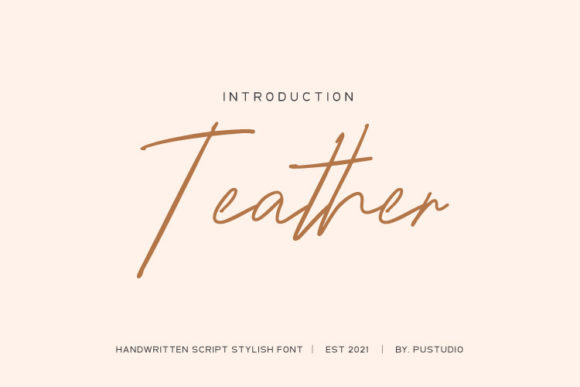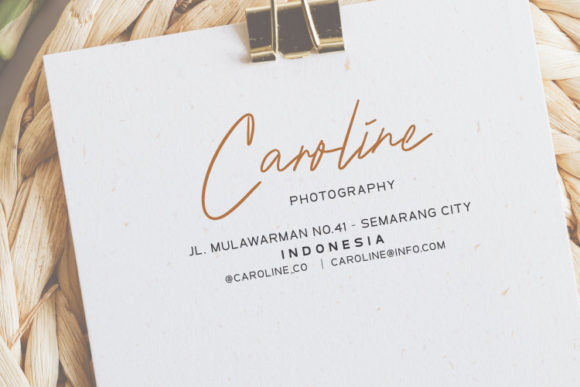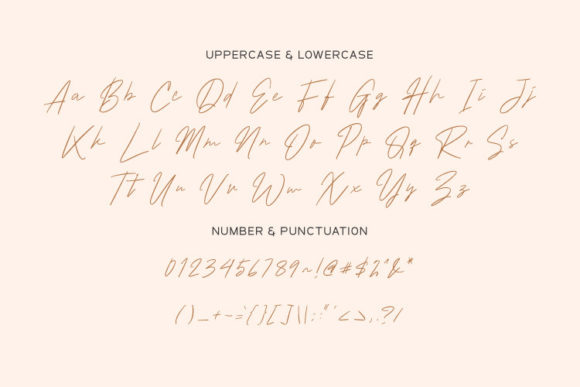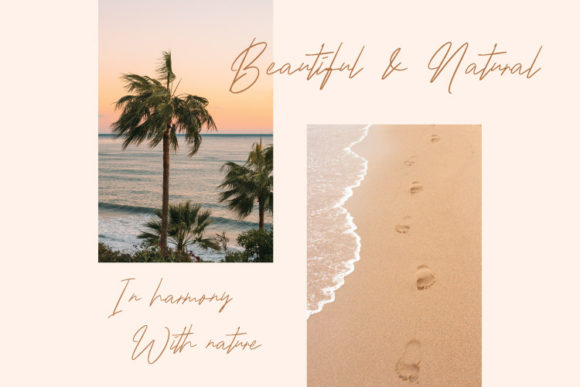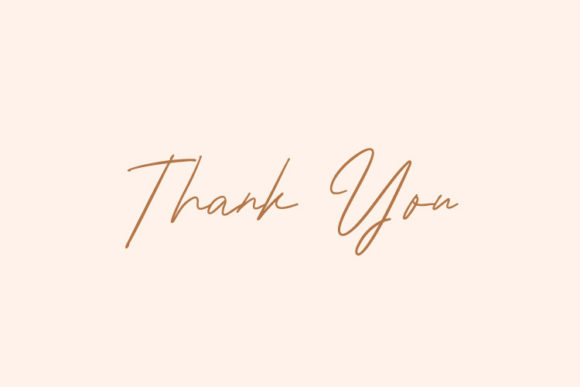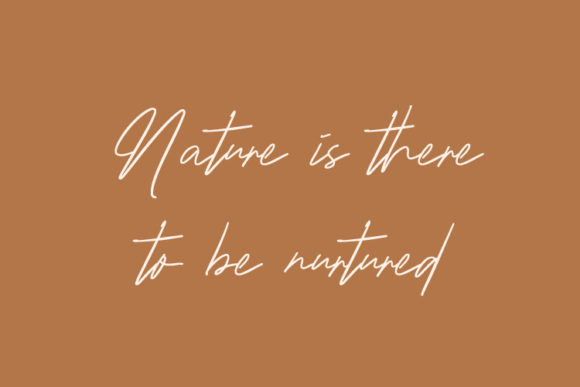
Teather Font
About Teather Font
TeatherĀ is an exquisite handwritten font, masterfully designed to become a true favorite. It maintains its classy calligraphic influences while feeling contemporary and fresh.